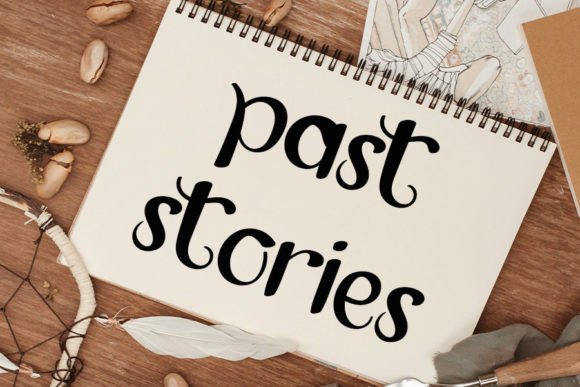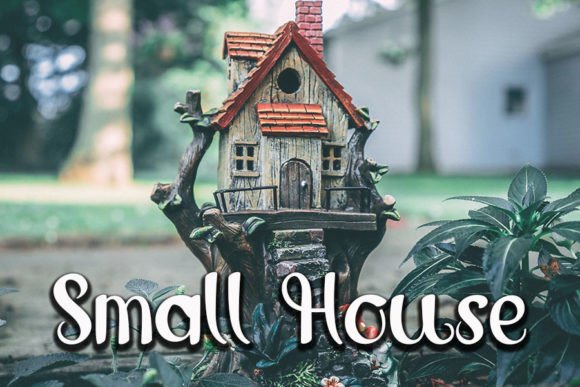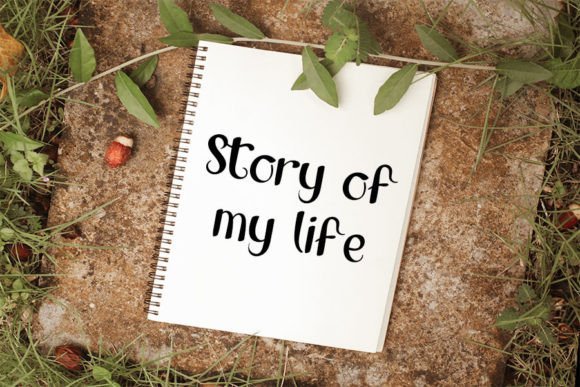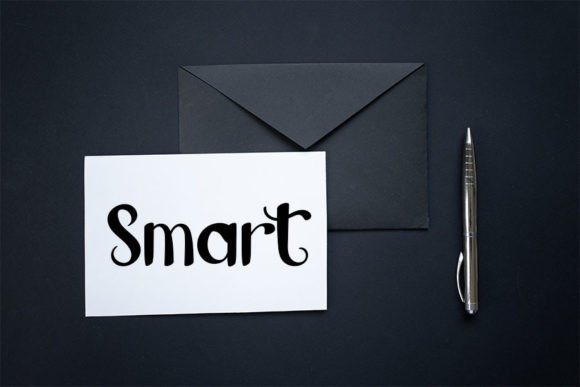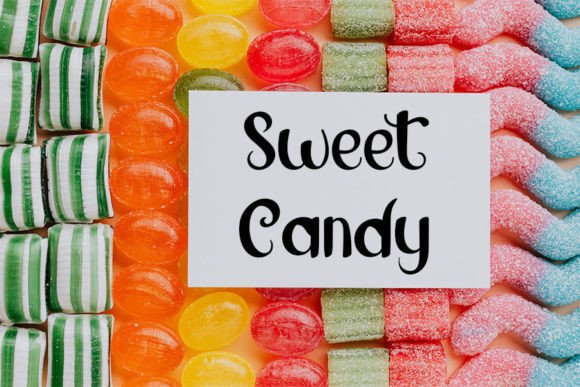
Introduction to My House Font
As designers, we’ve all been there – staring at a blank canvas, searching for the perfect font to bring our creative project to life. The moment of truth arrives when we discover a font that not only matches our vision but also adds an extra layer of personality to our design. This is exactly what My House Font does – it brings a touch of whimsy and romance to any project.
My House Font is a beautiful, high-quality, handwritten font that’s perfect for designers looking to add a personal and delicate touch to their designs. With its slim and delicate lines, this font is ideal for writing wedding invitations, cards, or any other design that needs a romantic and joyful feel.
Key Features of My House Font
- High-quality design: This font is designed with precision and care, making it perfect for any creative project.
- Unique characteristics: The unique design of My House Font features a modern and playful style, making it perfect for creative projects, such as logos, graphics, and typography.
Honest Review: My House Font
I recently stumbled upon My House Font while searching for a design resource for a creative project. As a designer, I was excited to give it a try and see how it would work out.
- High-quality design: My House Font boasts a unique and stylish design that’s perfect for modern projects.
- Limited character set: My House Font only includes a limited character set, which may not be suitable for projects requiring extensive typography.
- Not ideal for small text: Due to its bold and playful design, My House Font may not be the best choice for small text or body copy.
Overall, I was impressed with My House Font’s unique design and the fact that it’s free to download. While it may have some limitations, it’s an excellent resource for designers looking for a high-quality, creative font for their projects. I’d definitely recommend giving it a try!
My House Font is a high-quality design resource perfect for creative projects that require a unique and eye-catching style. With a transparent background, this font can be easily integrated into various design platforms.
Tips for Getting the Most Out of My House Font
To get the most out of My House Font, experiment with different font sizes, colors, and styles to create a unique and eye-catching design. Use the transparent background to create a seamless integration with your design elements.
My House Font is perfect for creative projects such as logos, business cards, brochures, and social media graphics. It can also be used in presentations, reports, and other business documents.